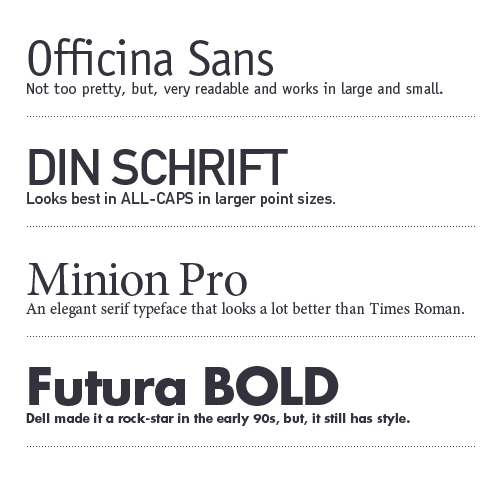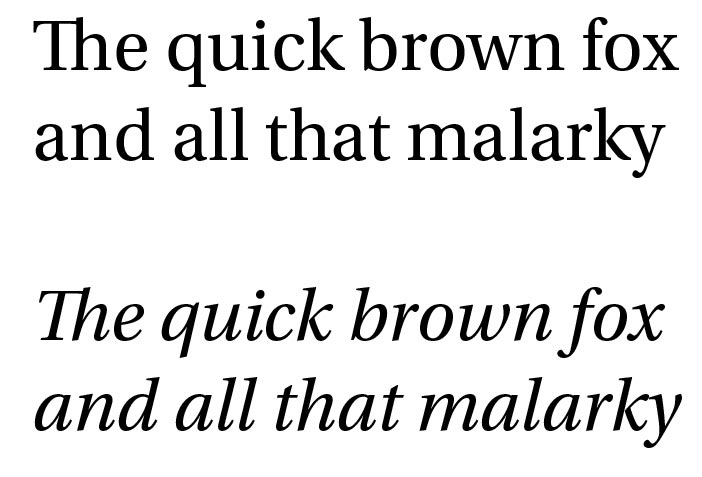
My favourite all-round font is Optima (for general use).
My favourite monospace font (terminal, guitar tabs, ascii art &c) is Courier, however I use Scrawl on my Linux box.
My favourite serif font is Baskerville.
I hate times/tnr, but my disgust for those fonts doesn't hold a candle to my "intense dislike" of comic sans.
It's just my luck that one of my profs' favourite font is comic sans 😡 , and all work for a certain course i'm taking has to be done in times (on pain of major point loss 😡 ).
Personally, my faves are:
Serif: Utopia Std (see attached)
Sans: Gill Sans & Myriad Pro
In combination these look very professional in my opinion. Being a recent Mac switcher, it was only recently that i noticed Apple use Myriad Pro as their "corporate" typeface.
Calvin and Hobbes... 😀
Always wanted to turn in a term paper written like that....
My favorite typefaces are:
Officina Sans
Not too pretty, but, very readable and works in large and small sizes.
DINS Schrift (the Mittelschrift version)
A great all-caps display font.
Minion Pro (prefer the Multiple-Master version)
For me, the most elegant of the serif typefaces. MUCH nicer than Times.
Futura
Dell did to this what Microsoft did to Franklin Gothic, but, I still like it.
Another typeface I use often is Helvetic Neue. It's more of a workhorse typeface, but, it's simplicity works well for many projects.
So many choices..um...um..
Suitcase is font porn!😀
Favs are, but not limited to Garamond Optima Manson Palatino Sabon
I finally got to use Zapfino the other month! Wedding Invite
Minion Pro (prefer the Multiple-Master version)
For me, the most elegant of the serif typefaces. MUCH nicer than Times.
Wow, I really like that for a serif font.
I love myriad, but don't use it as much anymore, as it's everywhere now. That's not a bad thing though, its a beautiful font.
I really enjoy using Lucida Grande, and Helvetica as well.
iGav, do you have an example of Bembo?
ATC Flamingo - similar to Arial Light, but much more refined
Scriptina - My favorite calligraphy font, very stylish with bold ligatures
That ATC Flamingo is really nice, I prefer it to Arial as well.
Another favourite of mine is Chicargo, a really nice font that comes with macs, very modern.
For serif: Palatino (in LaTeX) and Garamond
Sans serif: Optima
Comic sans makes my blood boil..
I tend to use a lot of simplistic sans-serif fonts. I prefer Helvetica for writing school papers, Lucida Grande for paper graphic design, and I've begun to start using Helvetica Neue Light for my movie productions, along with Lucida Grande. As for general a general 'fun' font, I like to go back to Classic Mac OS and use Textile. And, when I get a little bored of all of these, I use Trebuchet. Geneva is a good font for fine print.
Can anyone recommend a good serif font other than Times New Roman? Times New Roman reminds me too much of my PC days. Ick.
From what I understand there are only a limited amount of fonts that can be used in web browsers. So why is it that I (and others here) can use other fonts that are the typical "web fonts"?
Like Century Gothic isn't a typical "web font" (at least I don't think it is). So could you code in the HTML any font you want and if that person has that font on their system it can be viewed?
Im not sure. If the person viewing the page has the font then I think they will see it. But I don't know if some web browsers might automatically convert some non-typical fonts into typical ones (i.e. ariel or times new roman). If they don;t have the font on their system then they won't see it of course.
For a clean serif font, I recommend Palatino.
Hi, which fonts come pre-installed when you buy a Mac?
Don't worry about the fonts that come with mac, there are still tons that you can downlaod/buy from the internet, giving you a wide range of choice.
So for you, I submit the following from the Achewood comic strip:
I know a few have specified but what's everyone's favorite font that follows the idea of the universal appeal of Times that you can write papers/ pamphlets/ etc with but doesn't have the staleness of Times?
Trying to build my font library and looking for some solid fonts to start off with!